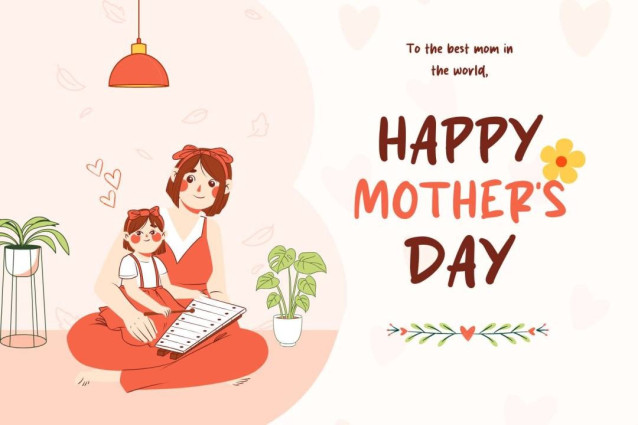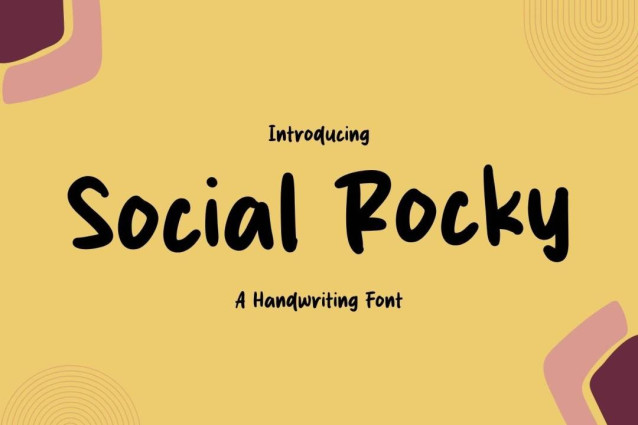
Social Rocky Font
Social Rocky Font is a simple and friendly handwritten font. Its natural and unique style makes it incredibly fitting to a large pool of designs. The only limit is your imagination!